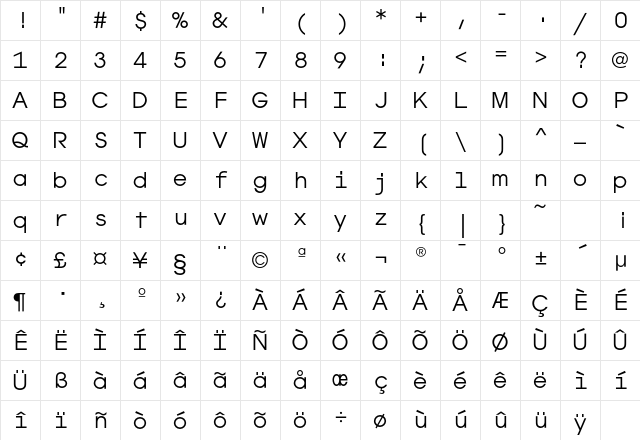
AvantGardeMonoEF Light
Complete AvantGardeMonoEF Light glyph index. Displaying only characters natively supported by AvantGardeMonoEF Light font.
Design Context for AvantGardeMonoEF
AvantGardeMonoEF uses fixed-width spacing throughout, giving it the structured, systematic character associated with coding environments and technical documentation. Its slender proportions lend an understated elegance to any composition.
Pro Tip: Use AvantGardeMonoEF with slightly increased line-height for extended reading - fixed-width spacing can feel dense in longer passages without extra breathing room.